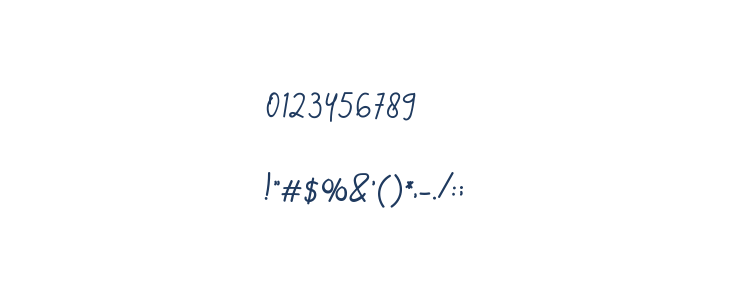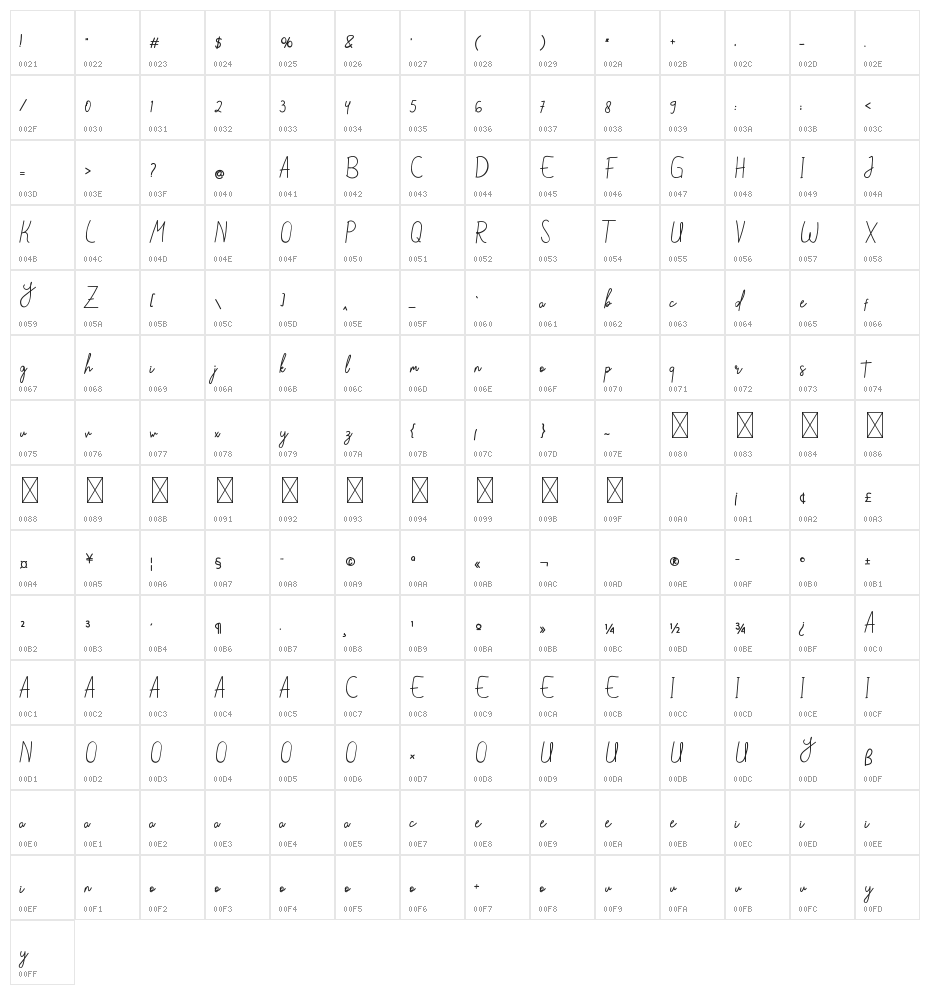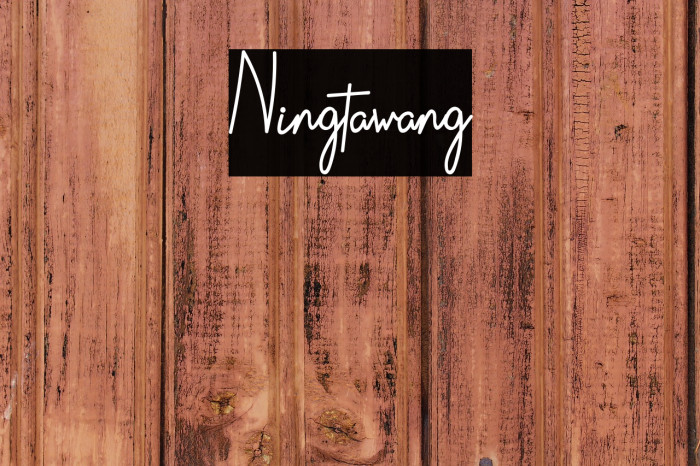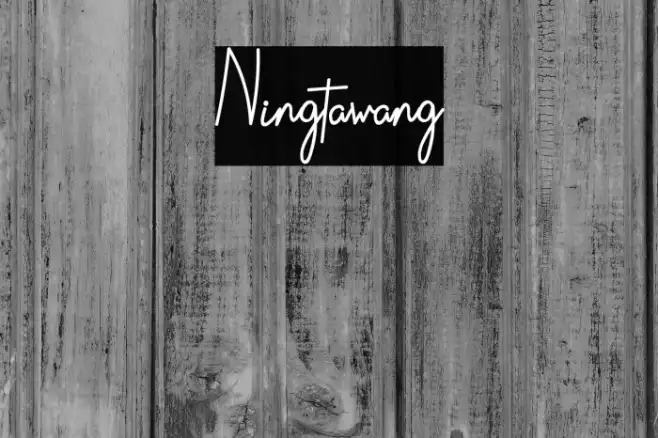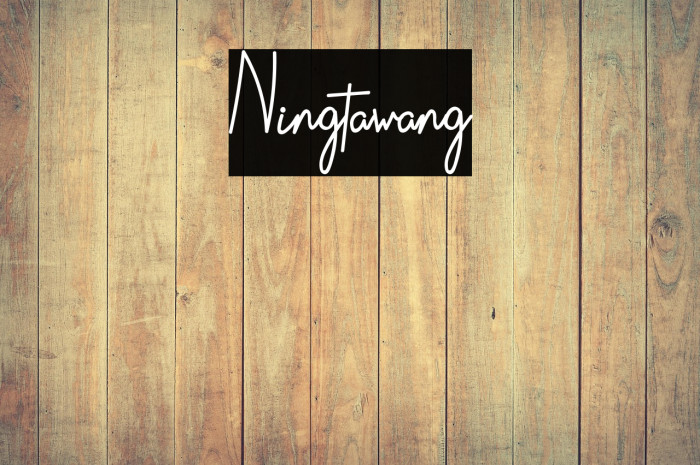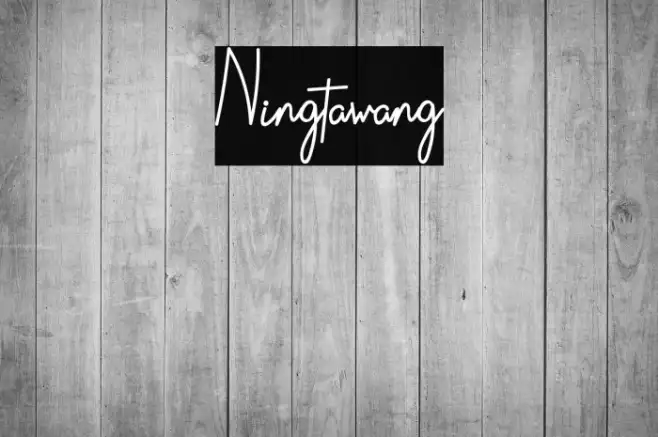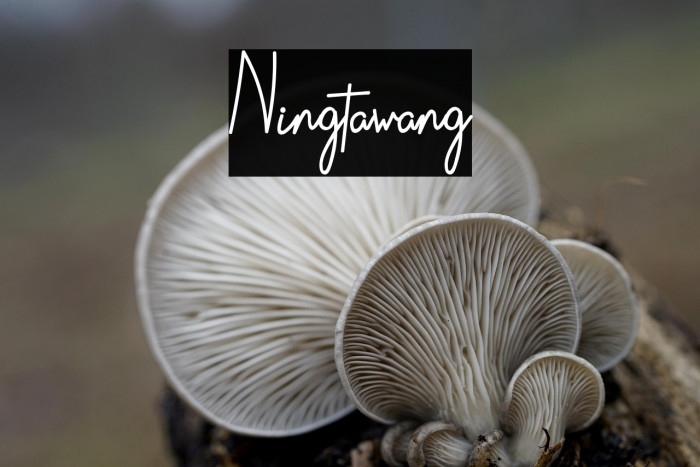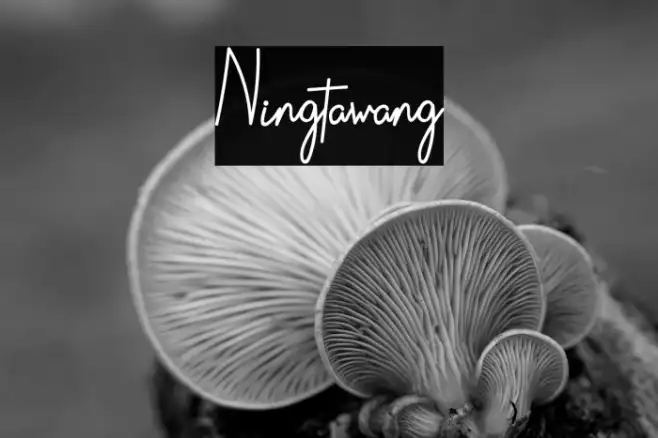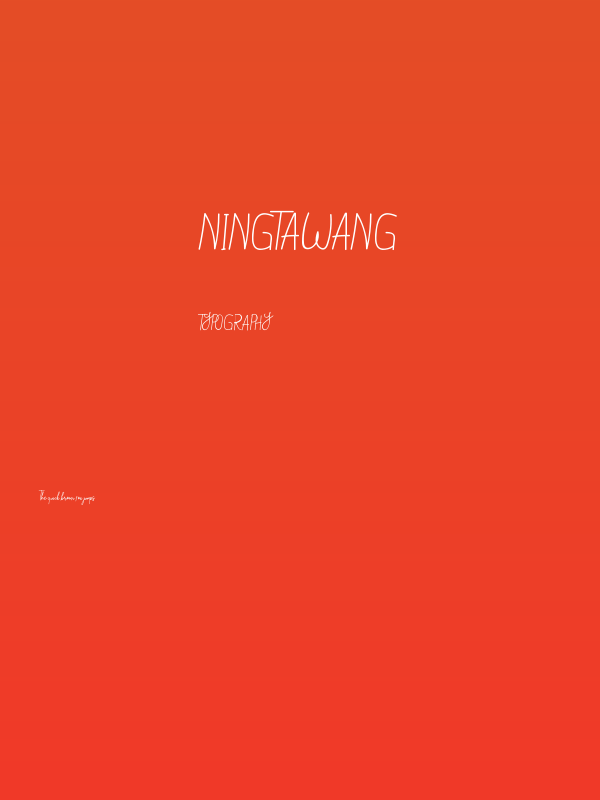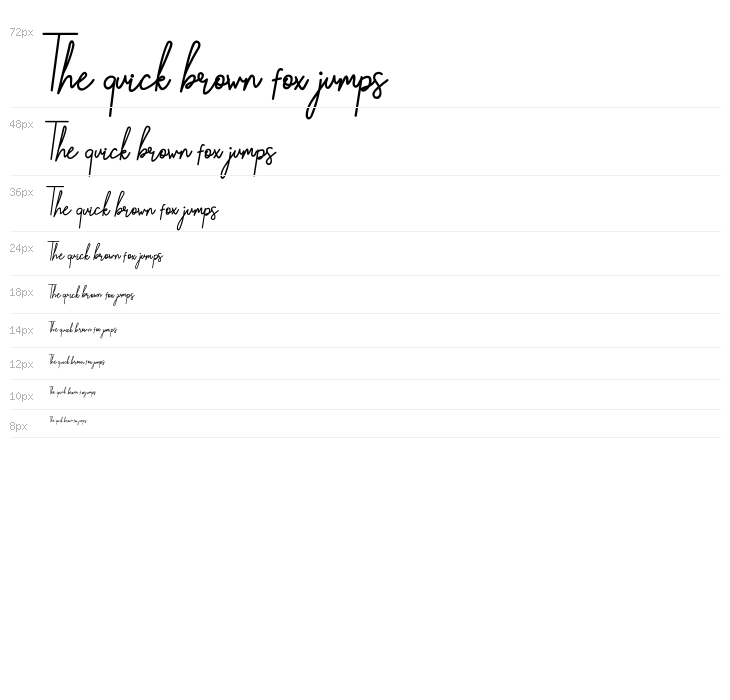
Ningtawang Font
Ningtawang Description
This font showcases a playful and casual handwritten style, characterized by its fluid and slightly irregular strokes. The uppercase letters are tall and narrow, with a slight slant that adds a dynamic feel. The lowercase letters maintain a consistent flow, enhancing the handwritten aesthetic. Numbers and special characters follow the same style, ensuring uniformity across all elements. The overall appearance is informal yet stylish, making it suitable for projects that require a personal touch.
| Proposed Projects | Ideal for greeting cards, personal branding, social media graphics, and informal invitations. |